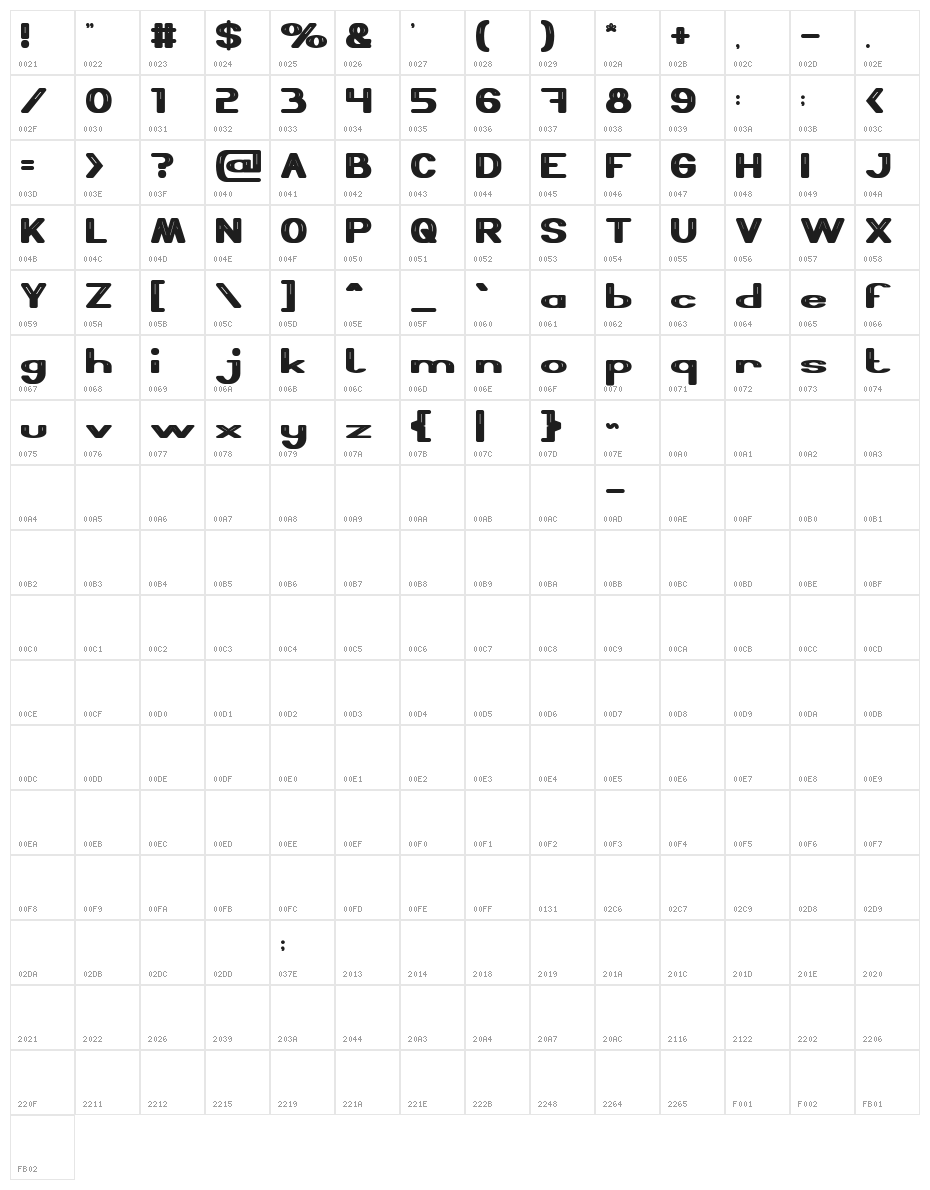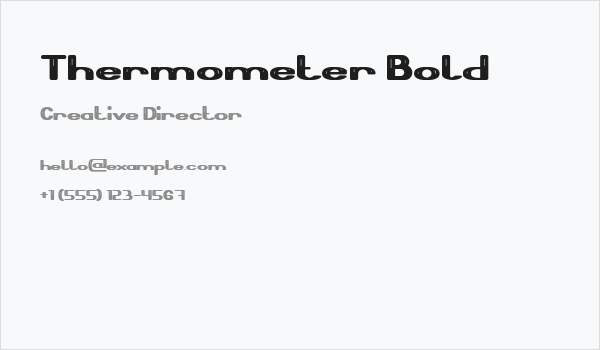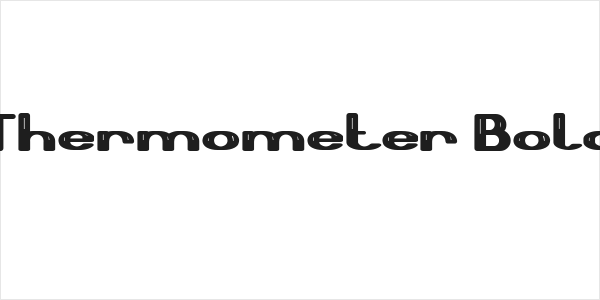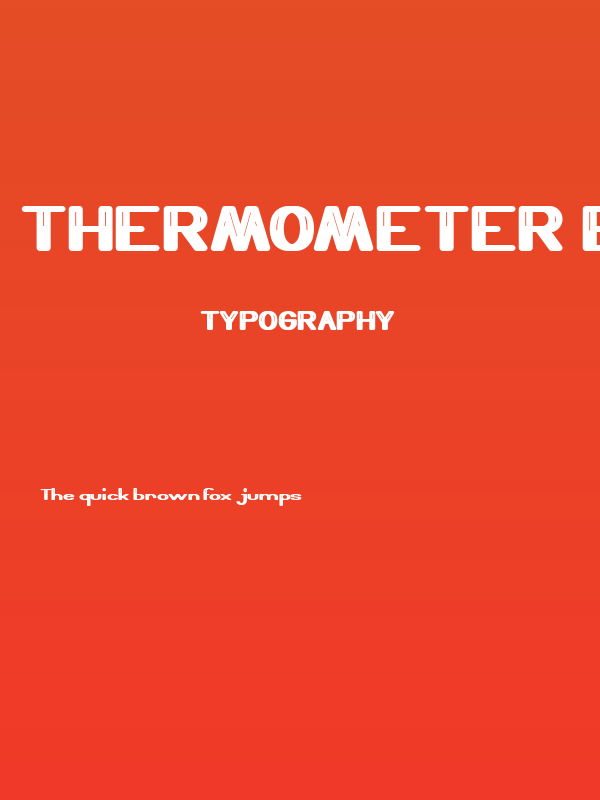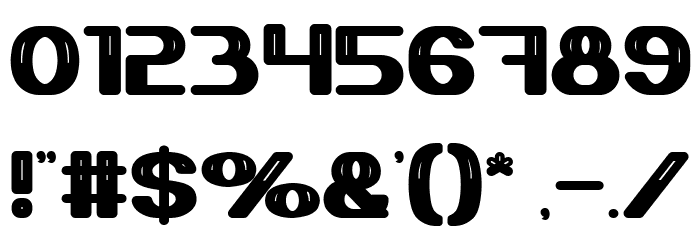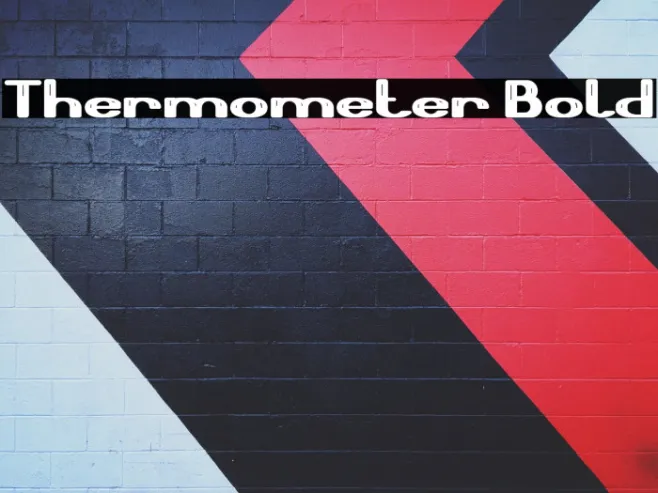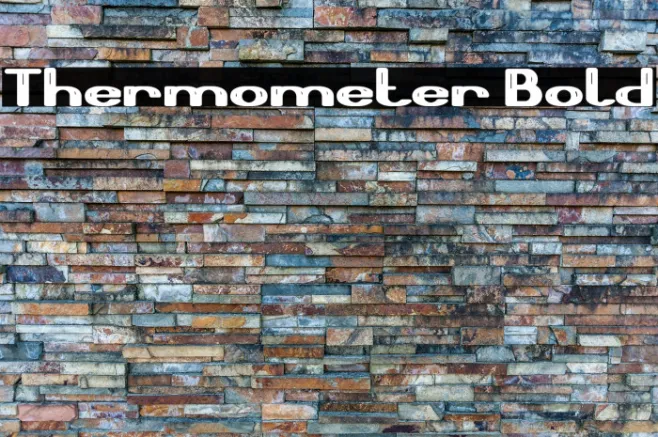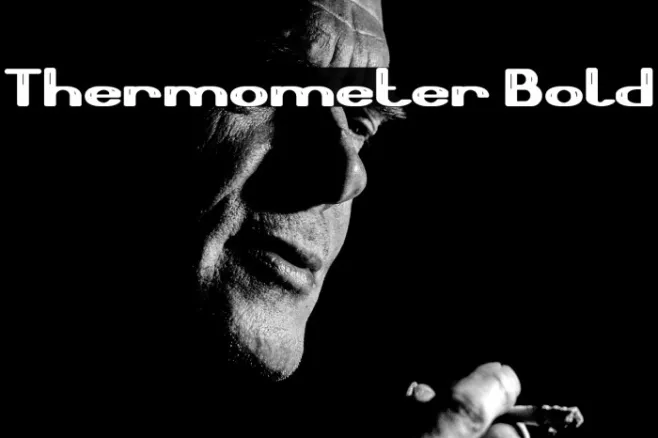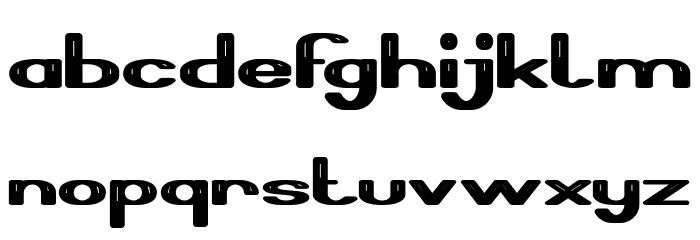
Thermometer Bold Font
Thermometer Bold Description
This font features a bold and rounded style with a playful and modern aesthetic. The characters are thick and have a uniform stroke width, giving them a strong presence on the page. The rounded edges and smooth curves contribute to a friendly and approachable look. The font maintains a consistent weight throughout, ensuring readability while adding a unique flair with its distinct shape. It is well-suited for eye-catching designs where a bold statement is needed. The spacing between characters is normal, allowing for clear legibility.